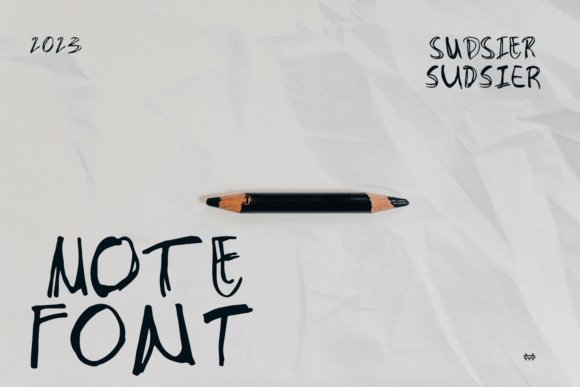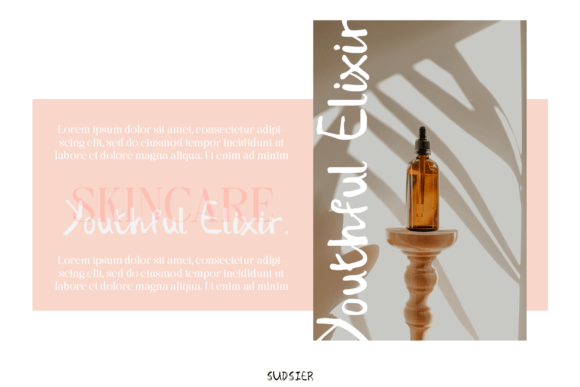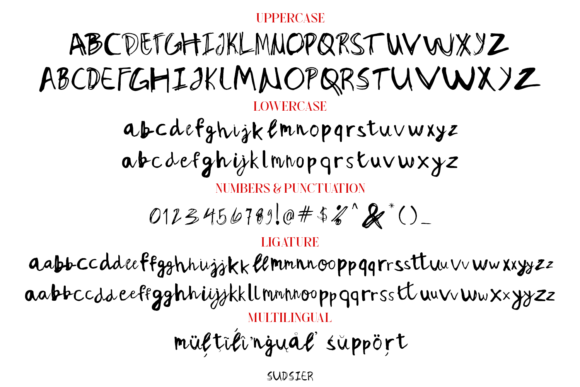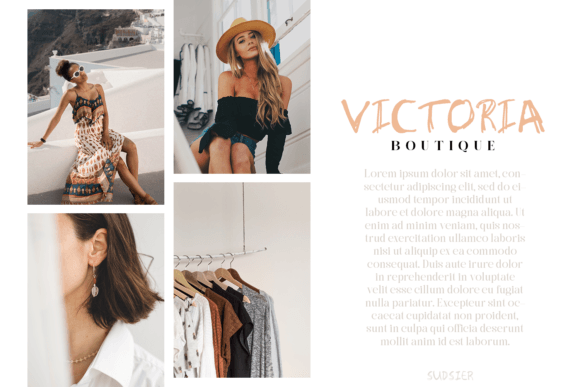
Sudsier Font: Playful Handwritten Font for Modern Branding
About the Sudsier Font
We are excited to introduce Sudsier Font, a must-have typeface for any serious designer. Sudsier is a note hand-drawn font that contains 50+ ligatures and comes with two alternative fonts. Sudsier is great for branding, posters, logos, invitation, writing, and headings.
Sudsier Font Usage Examples
Sudsier Font Example